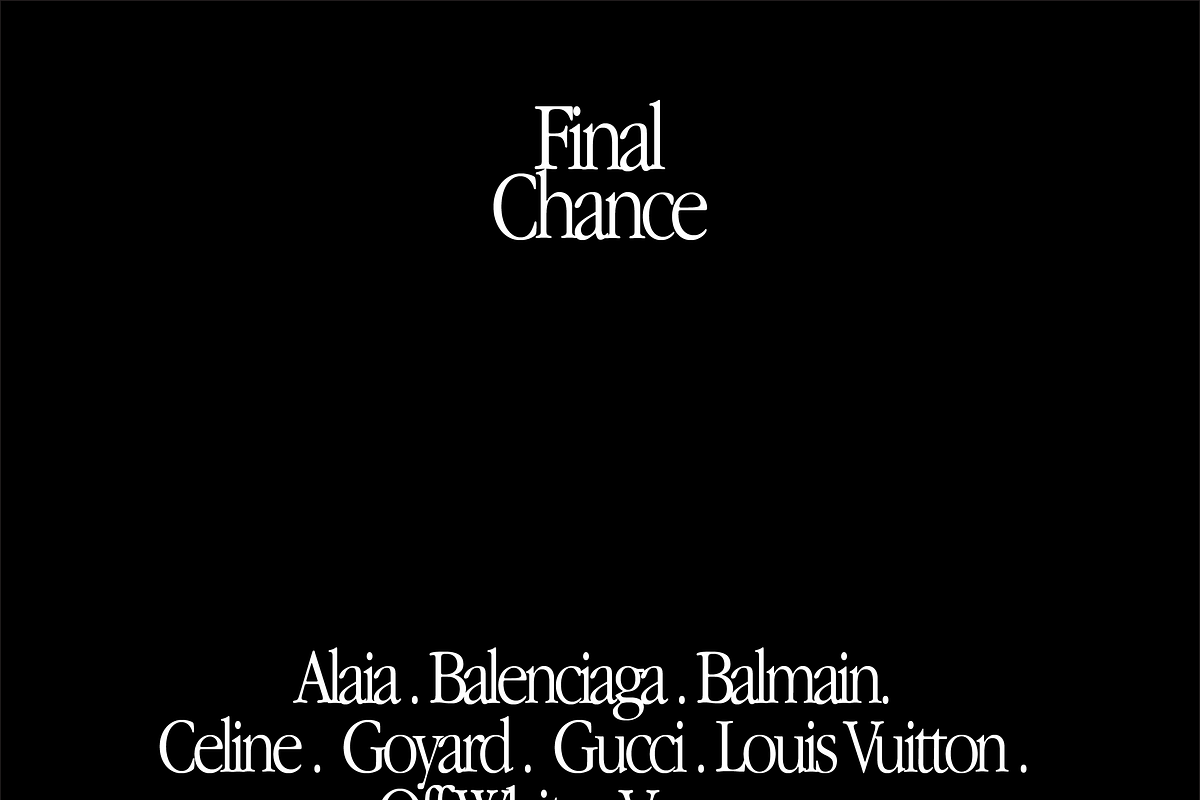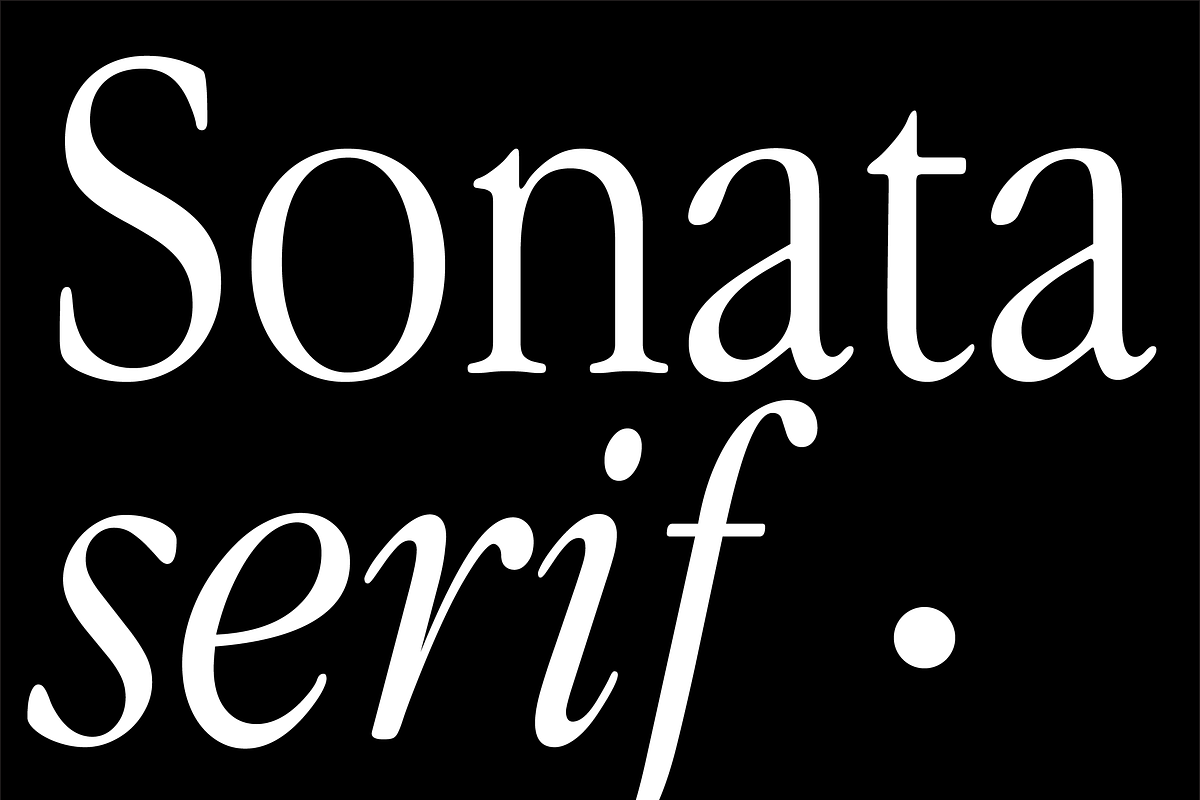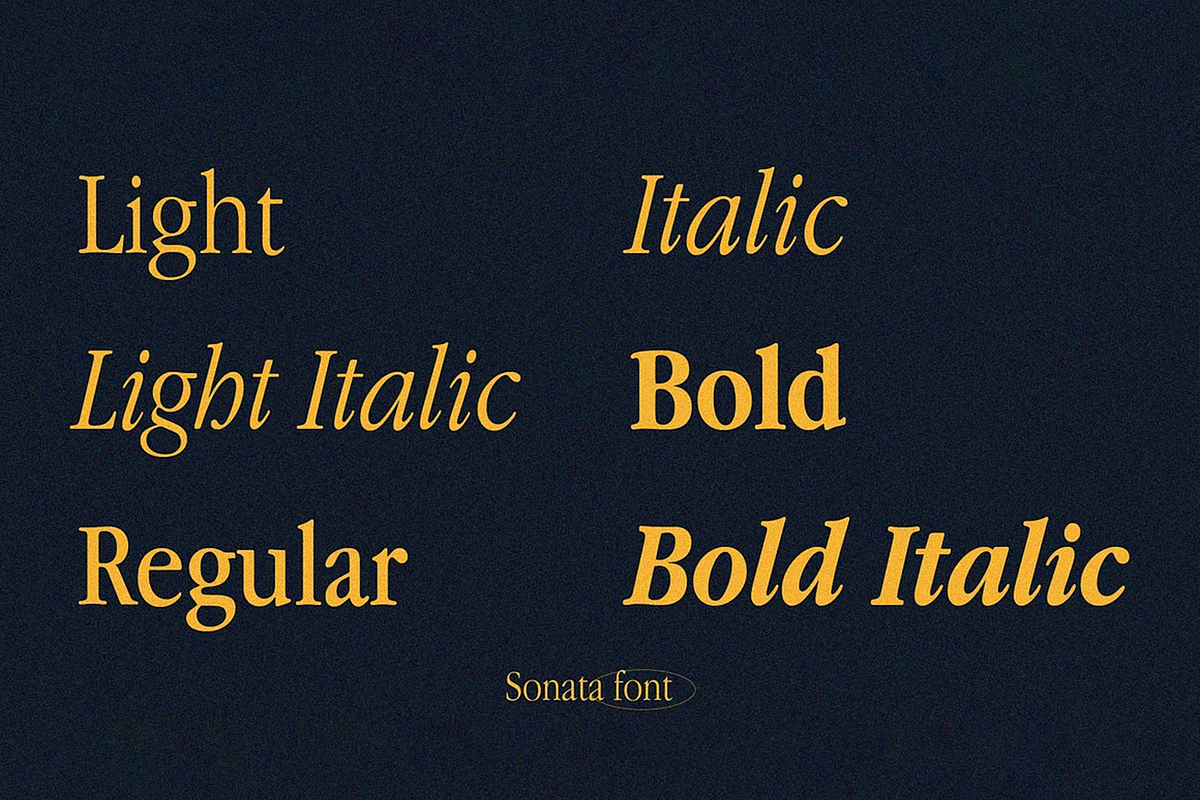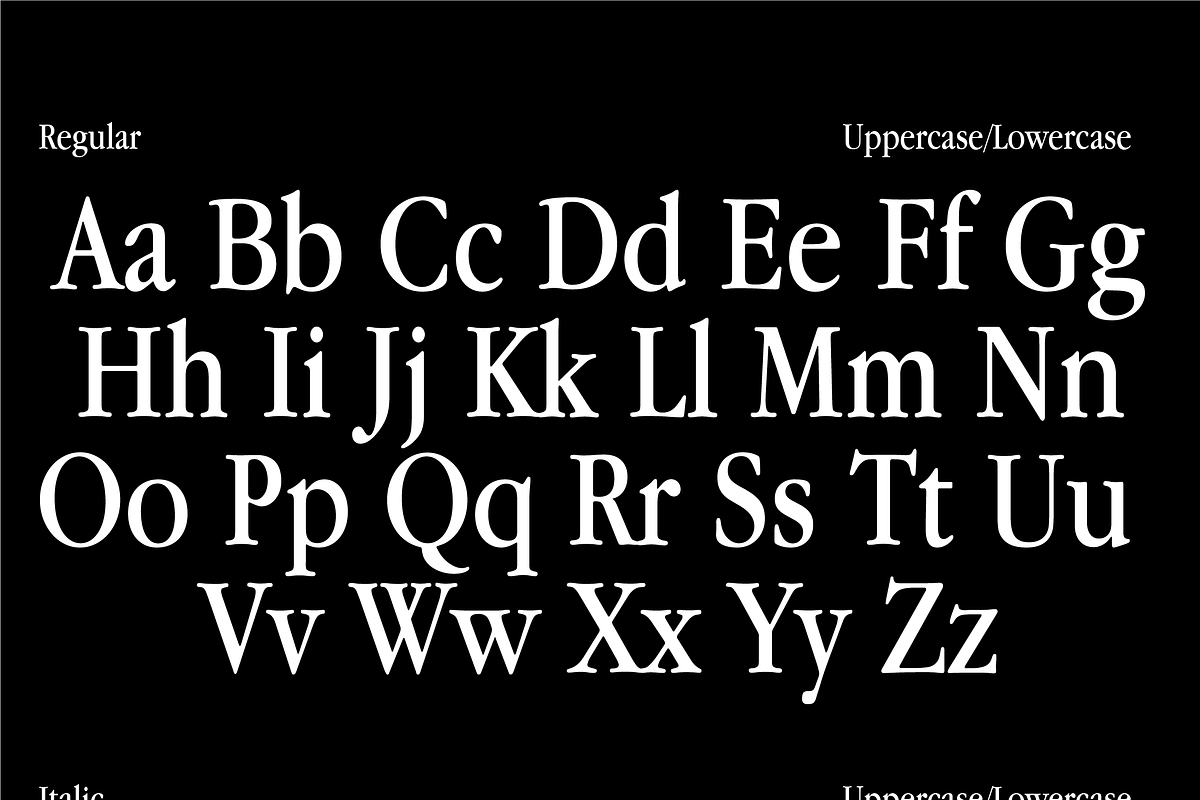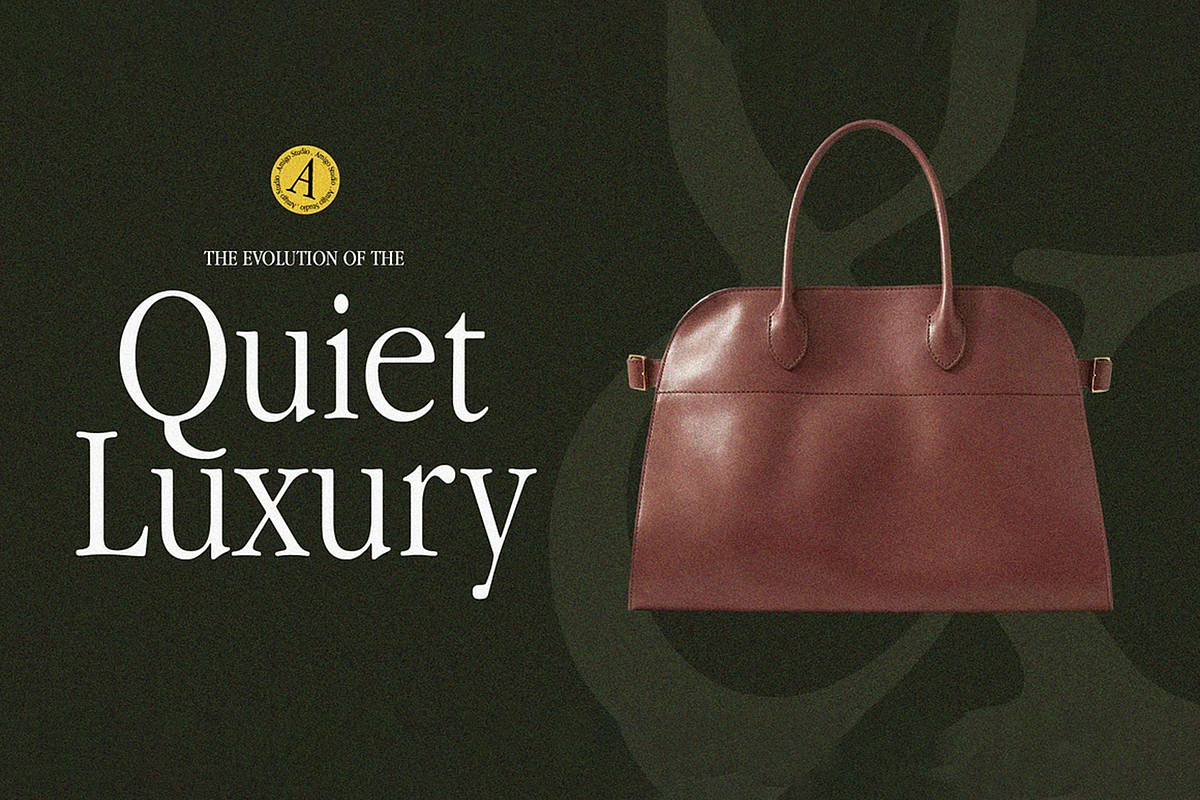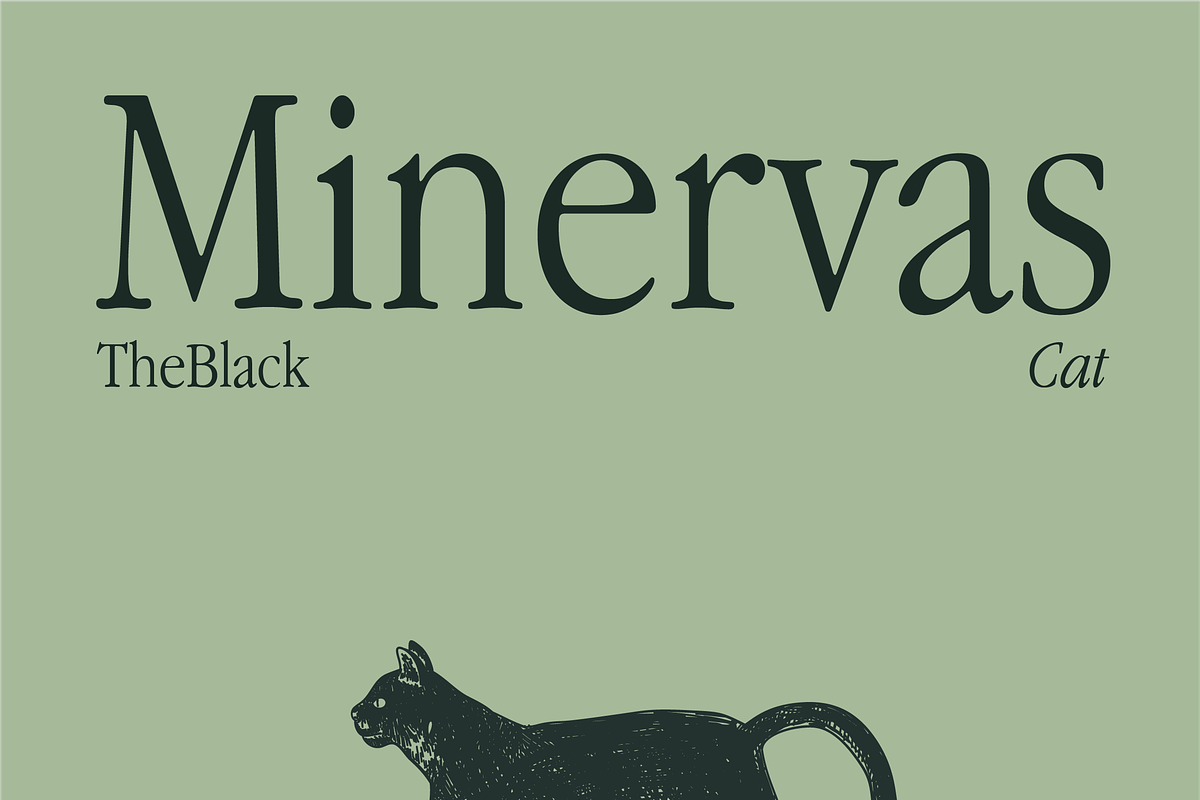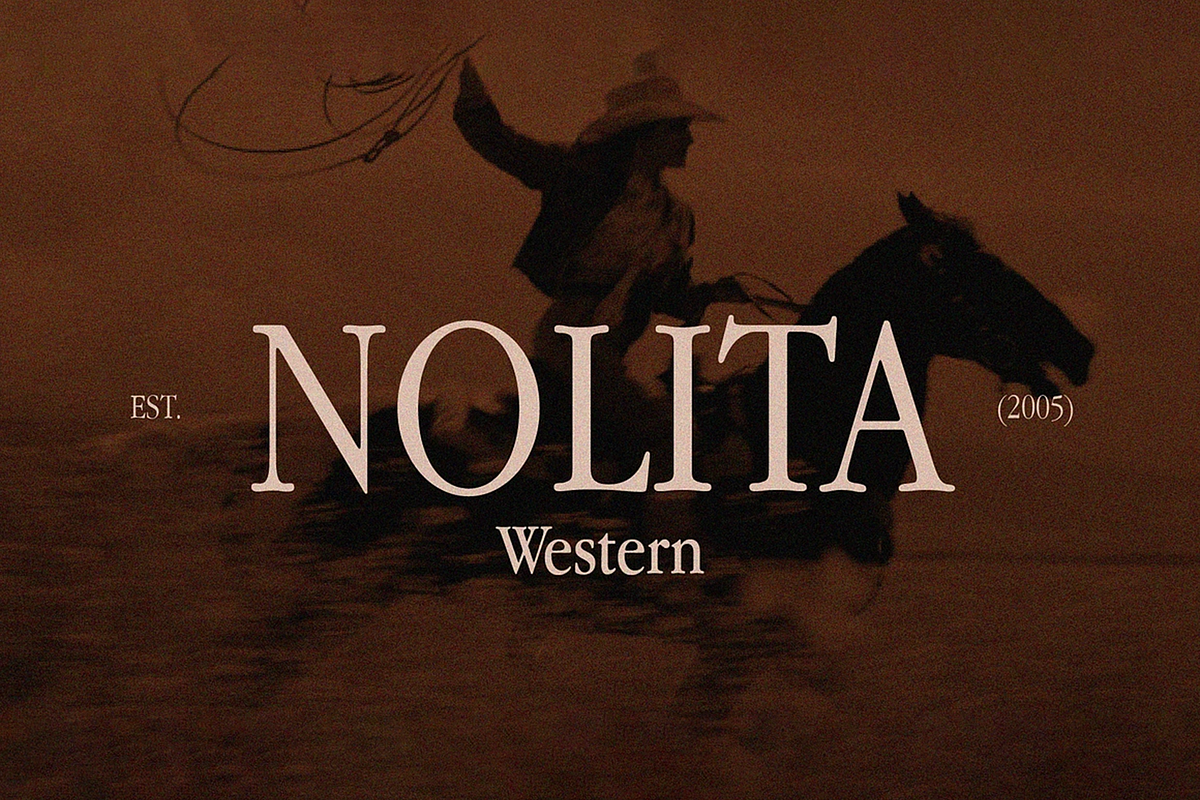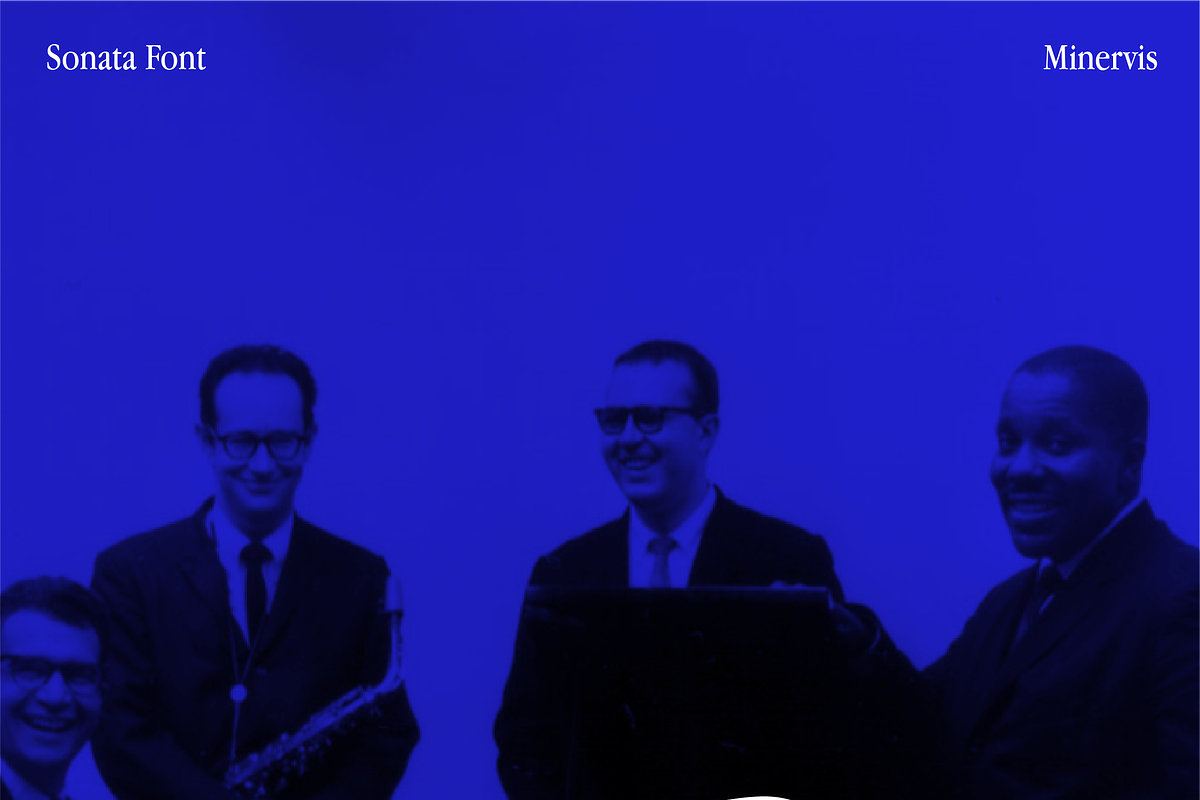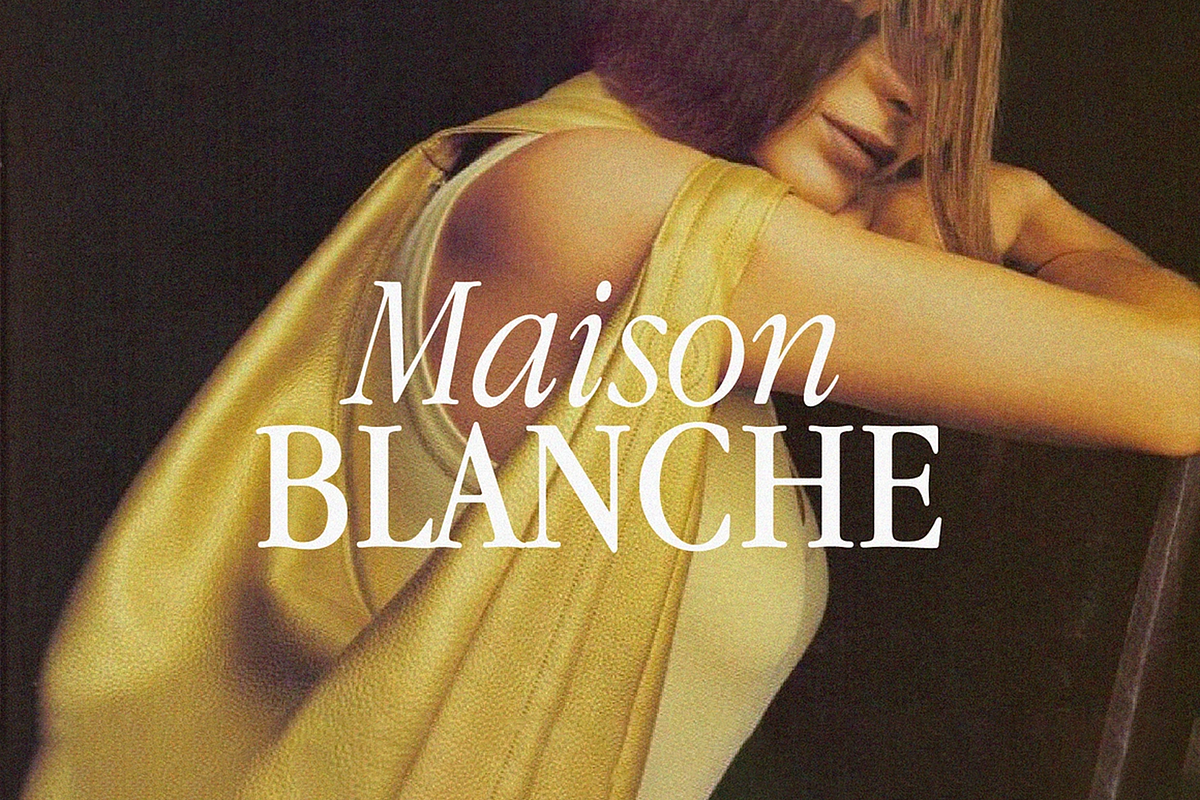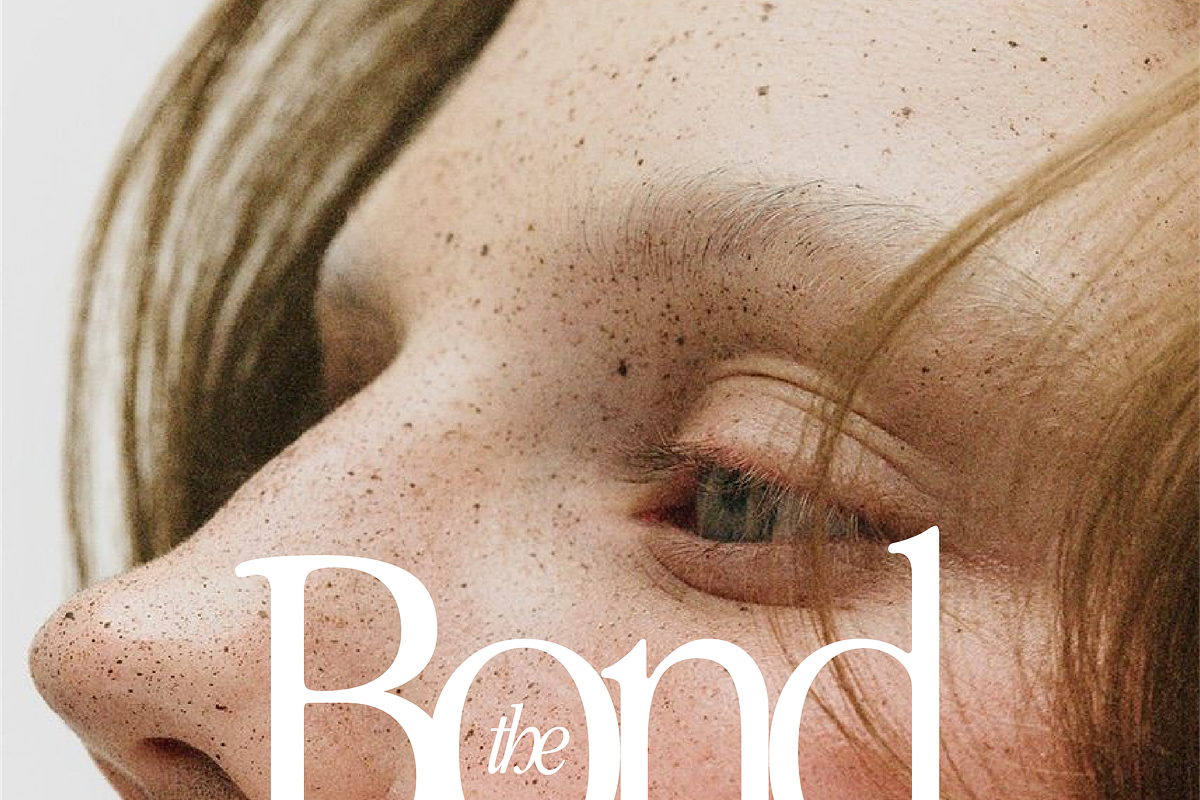
Sonata - Nostalgic Font
Introducing the Sonata Font - a classic and elegant typeface designed to elevate your branding and print projects. This font has been meticulously crafted to provide a timeless and versatile serif option that is perfect for a wide range of applications.
Sonata draws inspiration from traditional headline fonts, refined to offer a sophisticated look that complements both modern and vintage styles. Its clean lines and well-balanced proportions make it an excellent choice for any creative endeavor.
With a complete set of uppercase and lowercase characters, Sonata stands strong on its own or can be paired effortlessly with other fonts for creative display projects.